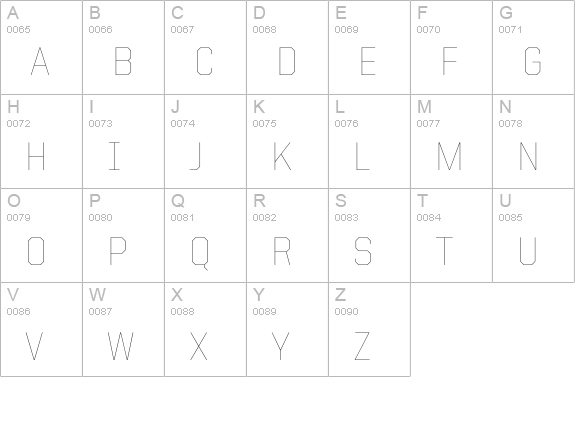
United Sans Reg Thin is a delicate, low-contrast variant in the United typeface family \xE2\x80\x94 well suited to fashion editorial, minimal branding, and high-contrast display.
United Sans Reg Thin is a stunning font that effortlessly captures the essence of modern elegance. With its sleek and minimalistic design, this font exudes a sense of sophistication and refinement. Its thin and delicate strokes lend a graceful touch to any design project, making it perfect for a wide range of applications. What sets United Sans Reg Thin apart is not just its impeccable aesthetics, but also its availability as a free download. That's right, you can enjoy the beauty of this font without spending a dime. Thanks to FontsMarket.com, this exquisite typeface is freely accessible to all, allowing designers, typographers, and creatives alike to enhance their projects with a touch of timeless beauty. Whether you're designing a logo, creating a website, or crafting a unique branding identity, United Sans Reg Thin is the ideal choice to add a touch of sophistication and style. Its clean and legible letterforms make it highly versatile, ensuring optimal readability across various mediums and sizes. With United Sans Reg Thin, your design will effortlessly stand out from the crowd, as it adds a touch of class and elegance that is hard to ignore. So why wait? Transform your creative endeavors into masterpieces by downloading United Sans Reg Thin for free at FontsMarket.com today.